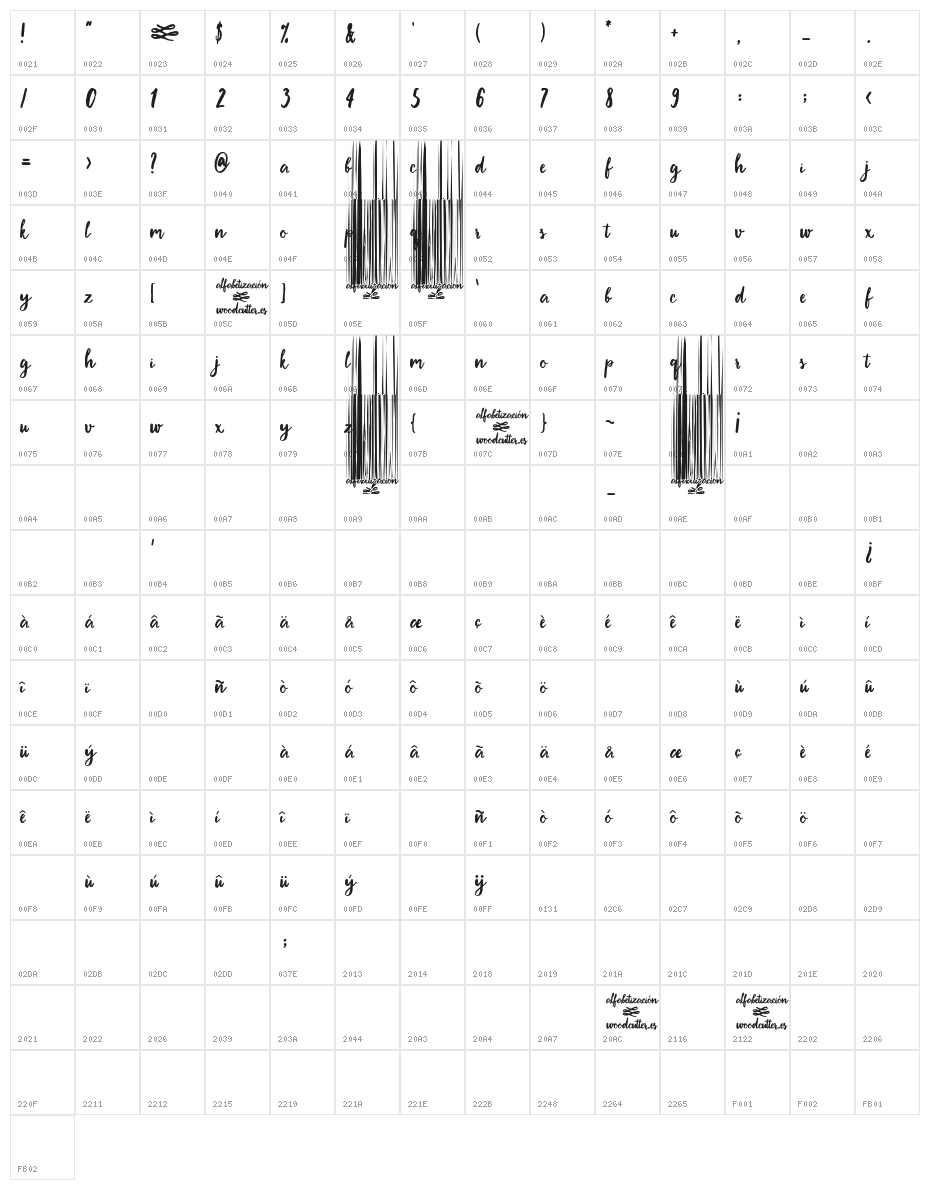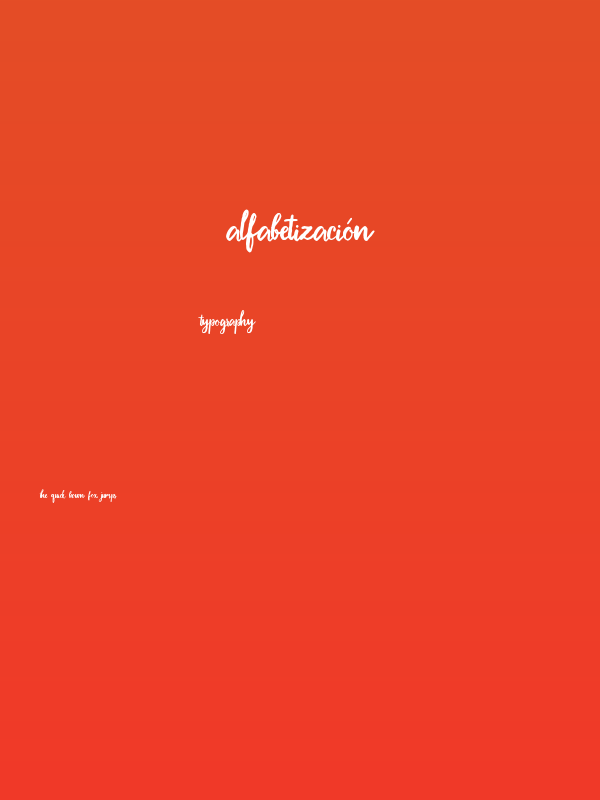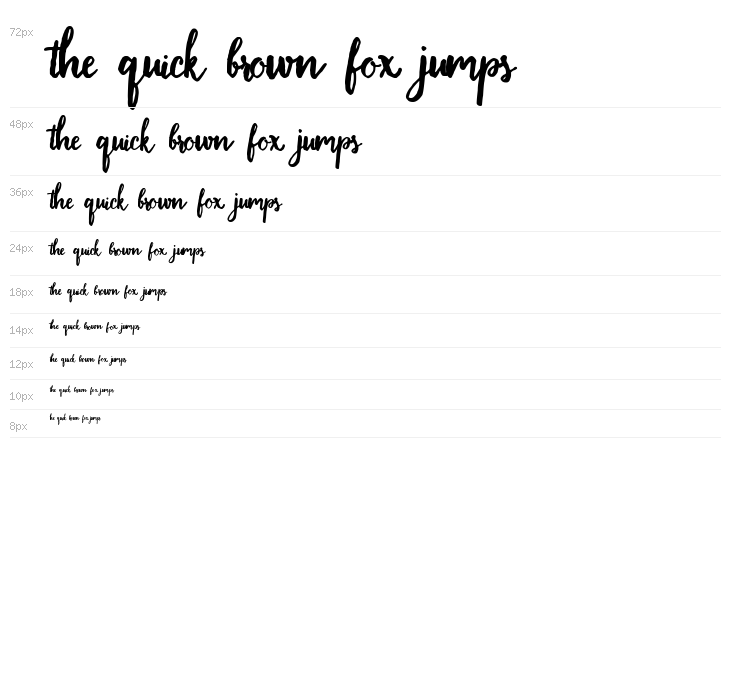
Alfabetización Font
Alfabetización Description
This font exhibits a playful and casual handwritten style, characterized by its fluid and connected strokes. The letters have a natural flow, mimicking the appearance of cursive handwriting. The uppercase and lowercase letters maintain a consistent style, with rounded edges and a slight slant, adding to its informal charm. The numerals are bold and easily legible, complementing the overall aesthetic. Special characters are creatively designed, maintaining the font's cohesive look. This font is ideal for projects that require a personal touch, such as invitations, greeting cards, and creative branding.
Overall StyleCasual
Use CaseLogos, Headlines, Invitations
Proposed ProjectsIdeal for invitations, greeting cards, and creative branding projects.